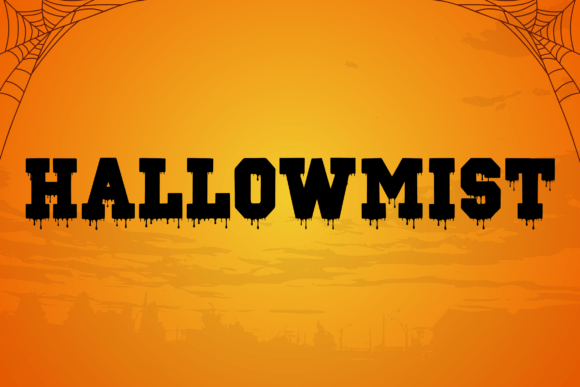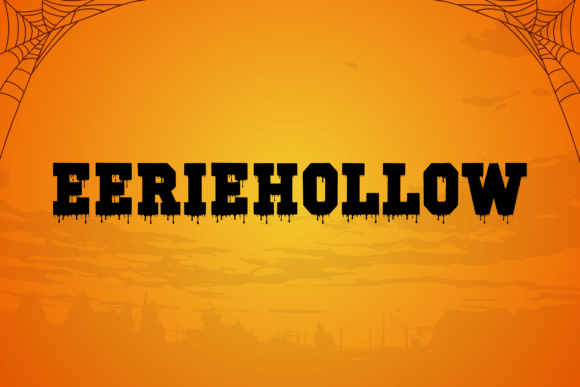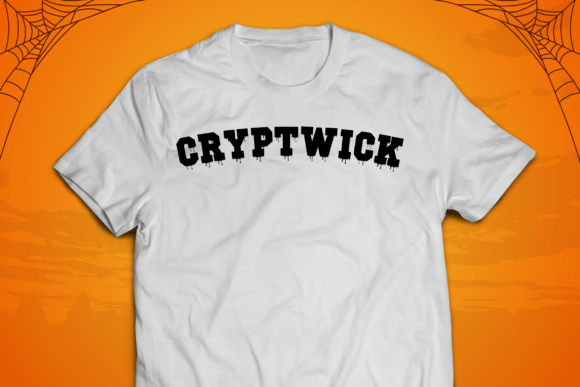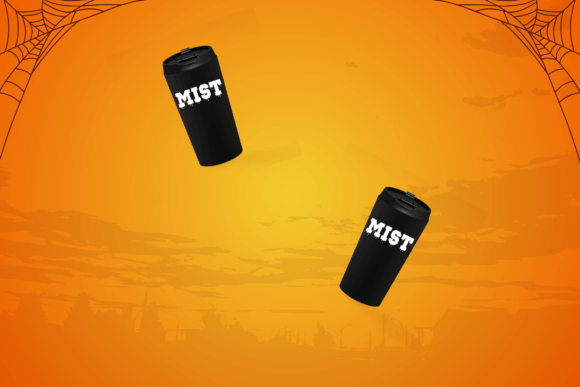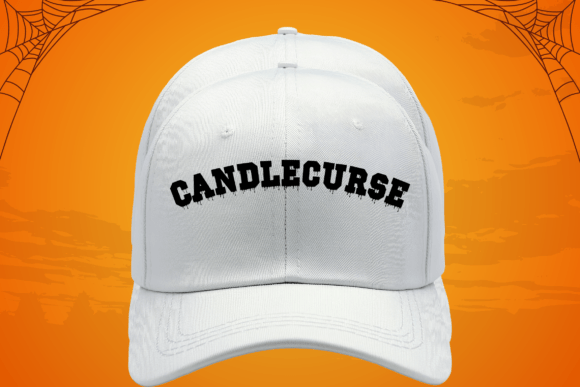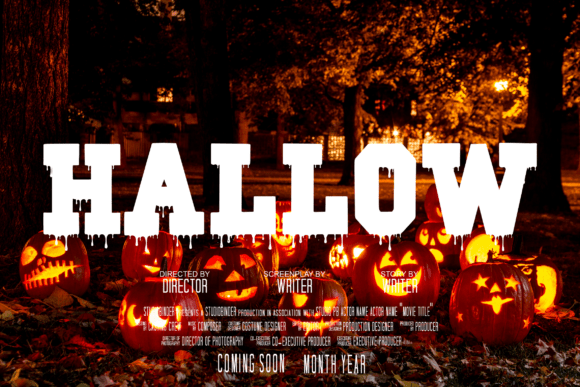
Meet Blockton Halloween, the Bold Spooky Display Font
Are you looking for a font that will add a spooky touch to your Halloween designs? Look no further than Blockton Halloween, a bold block display font with a playful and eerie twist. This font is perfect for designers and crafters who want to create eye-catching and festive designs for Halloween.
A Bold and Playful Font with a Spooky Twist
Blockton Halloween keeps the strong, chunky structure of Blockton while adding a darker seasonal mood that feels fun, bold, and easy to read. The letterforms are thick and balanced, making it perfect for use on various design materials, from small stickers to large posters. The font’s bold and playful style is sure to grab attention and add a spooky touch to your designs.
Use Blockton Halloween Font for a Variety of Designs
Blockton Halloween font is versatile and can be used for a wide range of designs, including:
- Halloween cards and invitations
- Party posters and flyers
- Apparel and accessories
- Stickers and decals
- Classroom decor and educational materials
- Seasonal branding and marketing materials
Why Blockton Halloween Font Sells
So, what makes Blockton Halloween font a popular choice among designers and crafters? Here are a few reasons:
Clean and Clear Printing
The solid shapes of Blockton Halloween font cut and print cleanly, making it perfect for vinyl, stickers, laser projects, and screen printing. This ensures that your designs look professional and crisp, whether you’re printing on paper, vinyl, or other materials.
Fast and Easy Layout
The block structure of Blockton Halloween font is simple and predictable, making it easy to work with. This means you can quickly and easily create layouts, without spending hours trying to get the design just right.
Stand Out from the Crowd
The bold Halloween style of Blockton Halloween font helps your products grab attention and stand out from the crowd. Unlike thin horror fonts, Blockton Halloween font is bold and eye-catching, making it perfect for designs that need to make a statement.
Tips for Using Blockton Halloween Font
Here are a few tips for using Blockton Halloween font in your designs:
- Use the font in combination with other design elements, such as images and graphics, to create visually appealing designs.
- Don’t be afraid to get creative and try out new and unusual design ideas.
Blockton Halloween font is a bold and playful font with a spooky twist, perfect for designers and crafters who want to create eye-catching and festive designs for Halloween. With its easy-to-use design, clean and clear printing, and bold Halloween style, Blockton Halloween font is sure to be a hit with designers and crafters alike. So why wait? Download Blockton Halloween font today and start creating spooky and fun designs for Halloween!